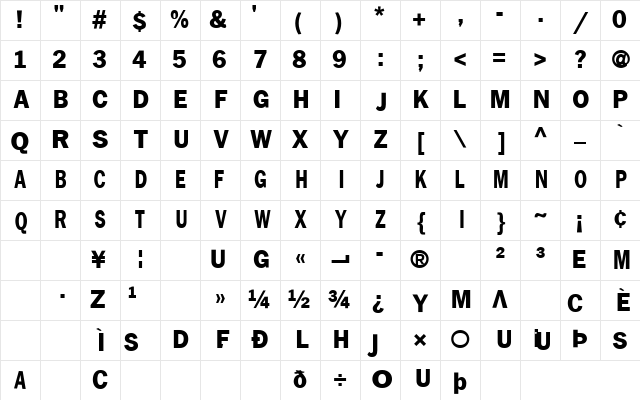
Complete BigEd Regular glyph index. Displaying only characters natively supported by BigEd Regular font.
BigEd is a composed and adaptable typeface that performs quietly and consistently across a wide range of design contexts.